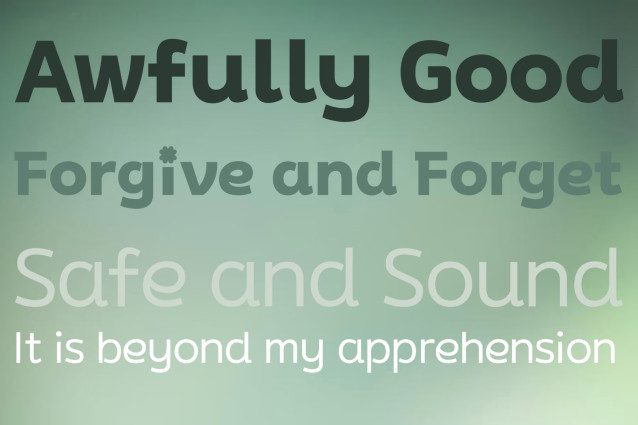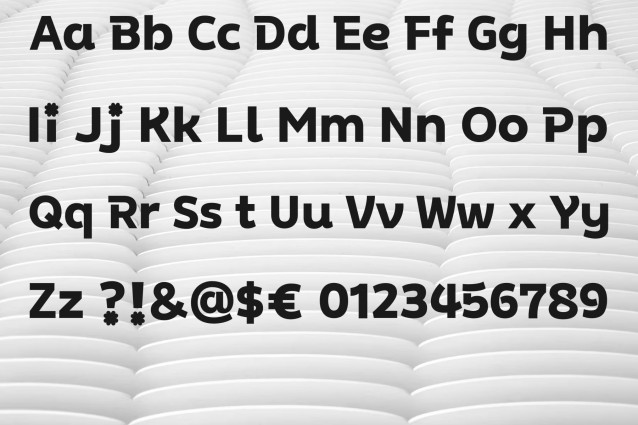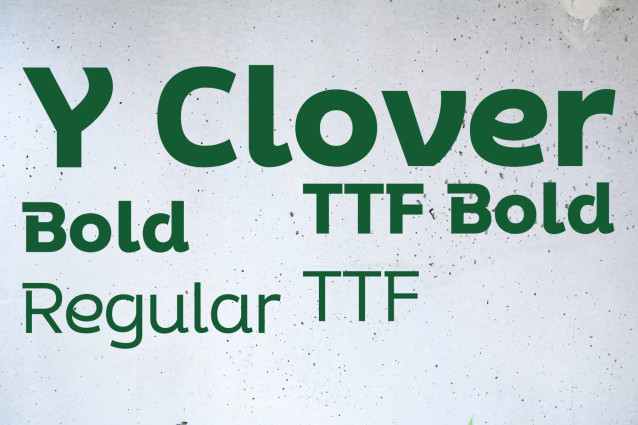
Y Clover Font Family
Y Clover Font Family: The design concept of Y Clover is inspired by the shape of a four-leaf clover. This motif is integrated into character components, creating a unique look with a bouncy charm from its curved strokes. It features resilient curved strokes in initial Korean consonants like ㄱ, ㄴ, ㄷ, and ㅅ to suggest active writing. The four-leaf clover shape is also playfully included in the vowels ㅗ, ㅜ and the internal space of consonants ㅂ, ㅍ.
The typeface is available in two weights: Bold and Regular. The Bold weight is designed to be thick and eye-catching for titles, while the Regular weight is intended for subheadings or main text. The font has carefully adjusted letter spacing (자간) for each weight to ensure evenness. The visual centre of the characters flows from the middle towards the top.
Y Clover supports a comprehensive range of characters, including:
Korean: 2,350 base characters and 430 additional characters.
English: 94 Basic Latin characters with Kerning. The English alphabet design reflects the curved characteristics of the Korean characters for a unified aesthetic. Notably, the shape of the lowercase ‘i’ changes depending on the weight (Bold or Regular).
KS Symbols: 986 characters designed to harmonise with the Korean and English sets. This set includes a variety of symbols, punctuation, numbers, and some non-Korean characters. Numbers also incorporate the Korean design characteristics.
Icons: A unique set of 40 graphic icons, designed with a four-leaf clover shape. When the Bold font file is installed, 36 of these icons are available. These icons can be accessed by typing specific, less commonly used Korean characters that evoke the icon’s name.